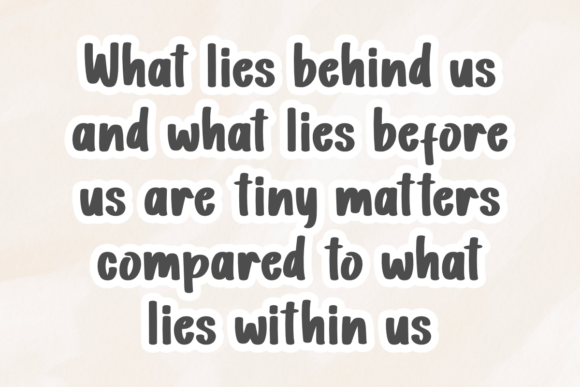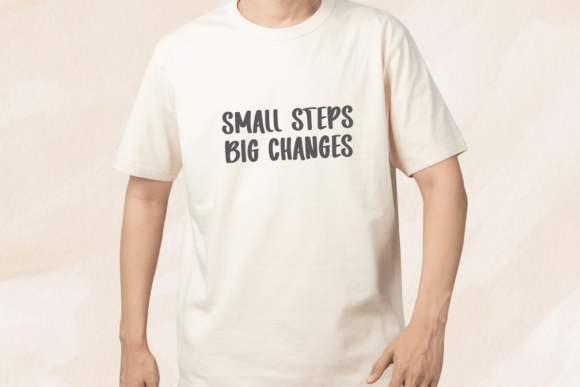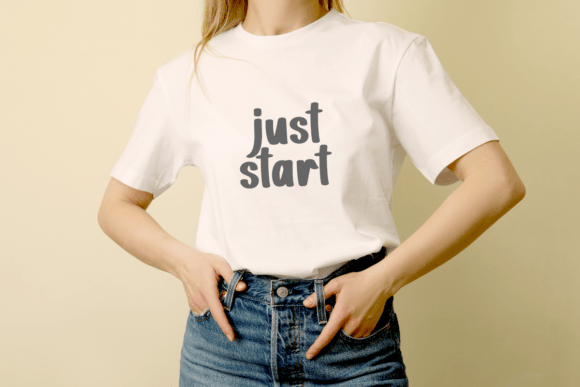
Introduction to Charming Designer Font
Charming Designer is a bold and fun display font with a hand-lettered style that’s full of personality.
Its thick strokes, soft curves, and playful energy make it perfect for branding, logos, posters, merch, and social media graphics Whether you’re designing for a creative business or crafting something eye-catching, Charming Designer adds instant charm and character to every project.
Key Features of Charming Designer Font
Why Choose Charming Designer Font?
Charming Designer Font offers exceptional quality and versatility, making it a valuable addition to your design toolkit. Whether you’re creating for personal projects or commercial use, Charming Designer Font delivers professional results.